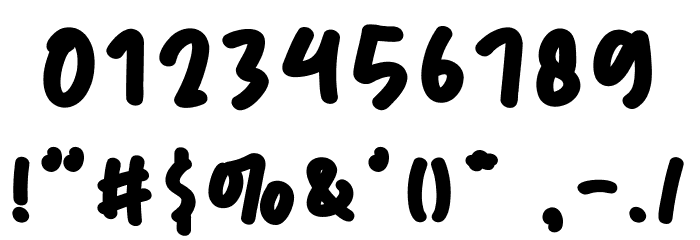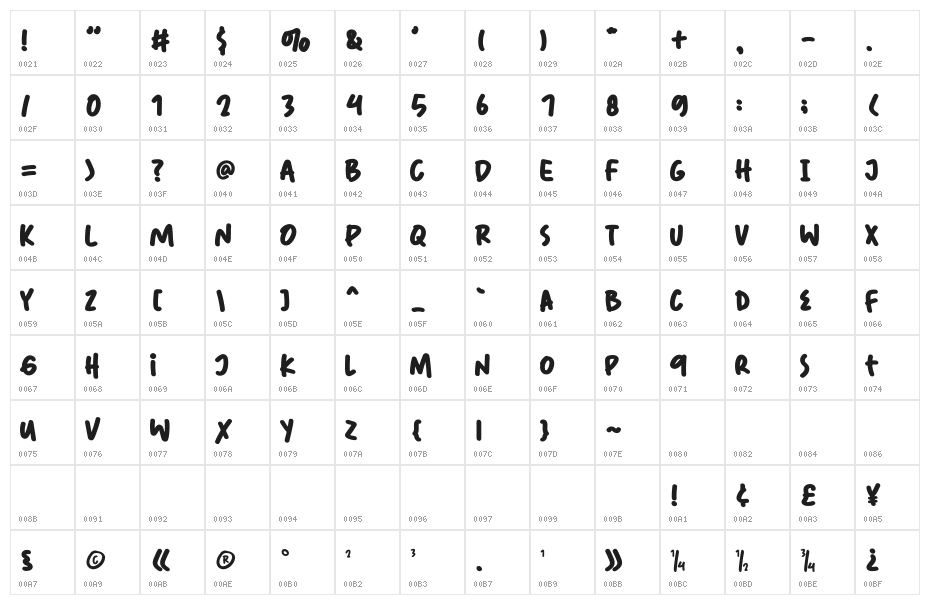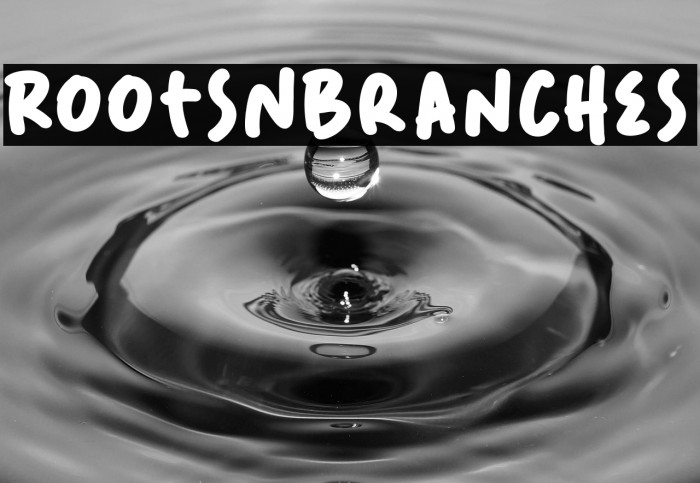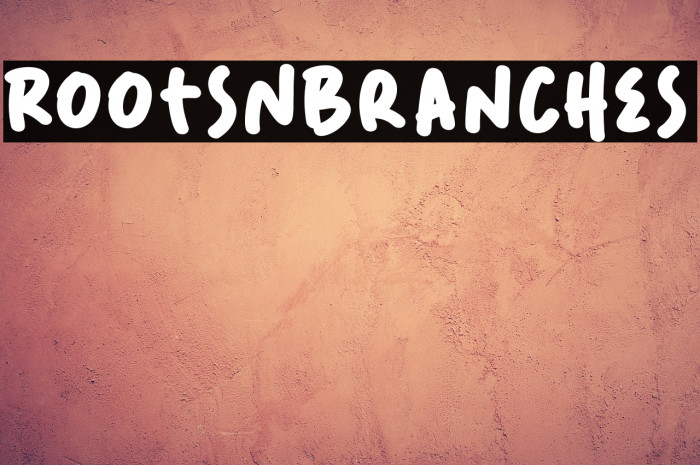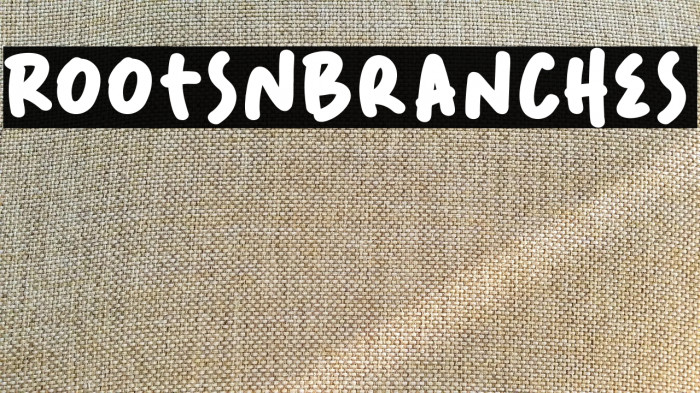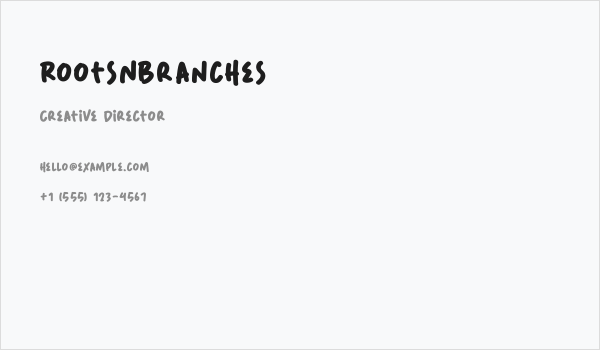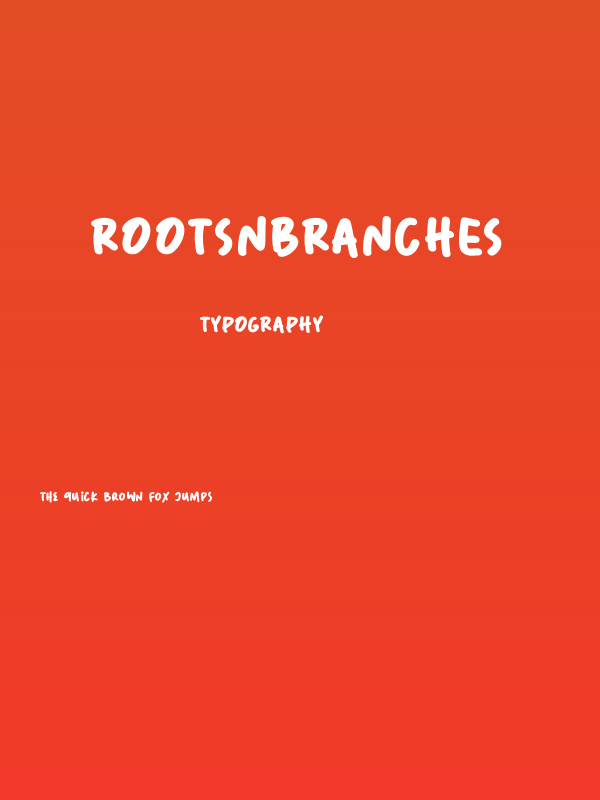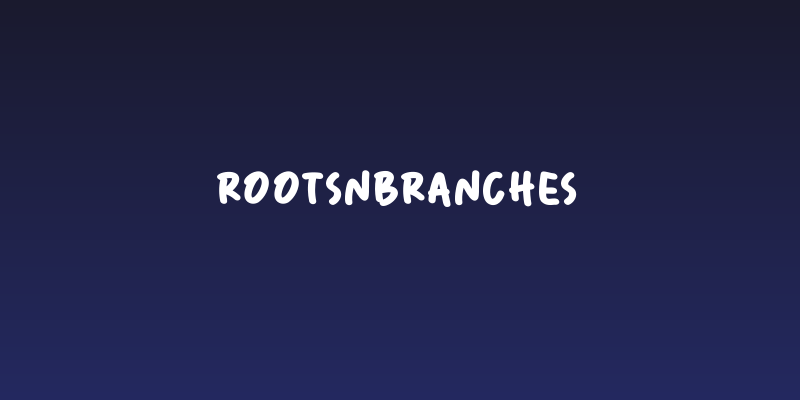
RootsNBranches Font
RootsNBranches Description
This font features a playful and bold handwritten style, characterized by its thick strokes and rounded edges. The letters are slightly irregular, adding a whimsical and informal touch. The uppercase and lowercase letters maintain a consistent weight, providing a cohesive look. The numerals and special characters follow the same playful aesthetic, making the font versatile for various creative applications. Its boldness ensures high readability, while the unique character shapes add personality and charm.
| Proposed Projects | Ideal for children's books, playful branding, greeting cards, and social media graphics. |